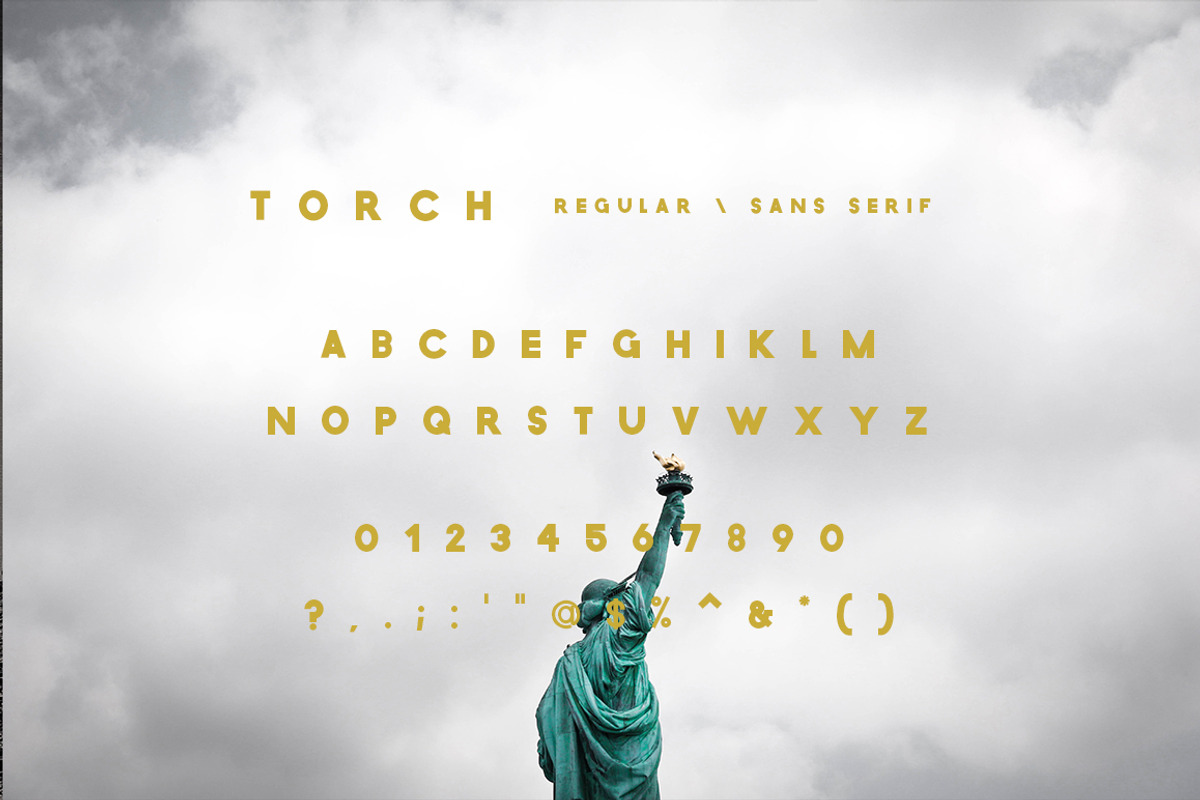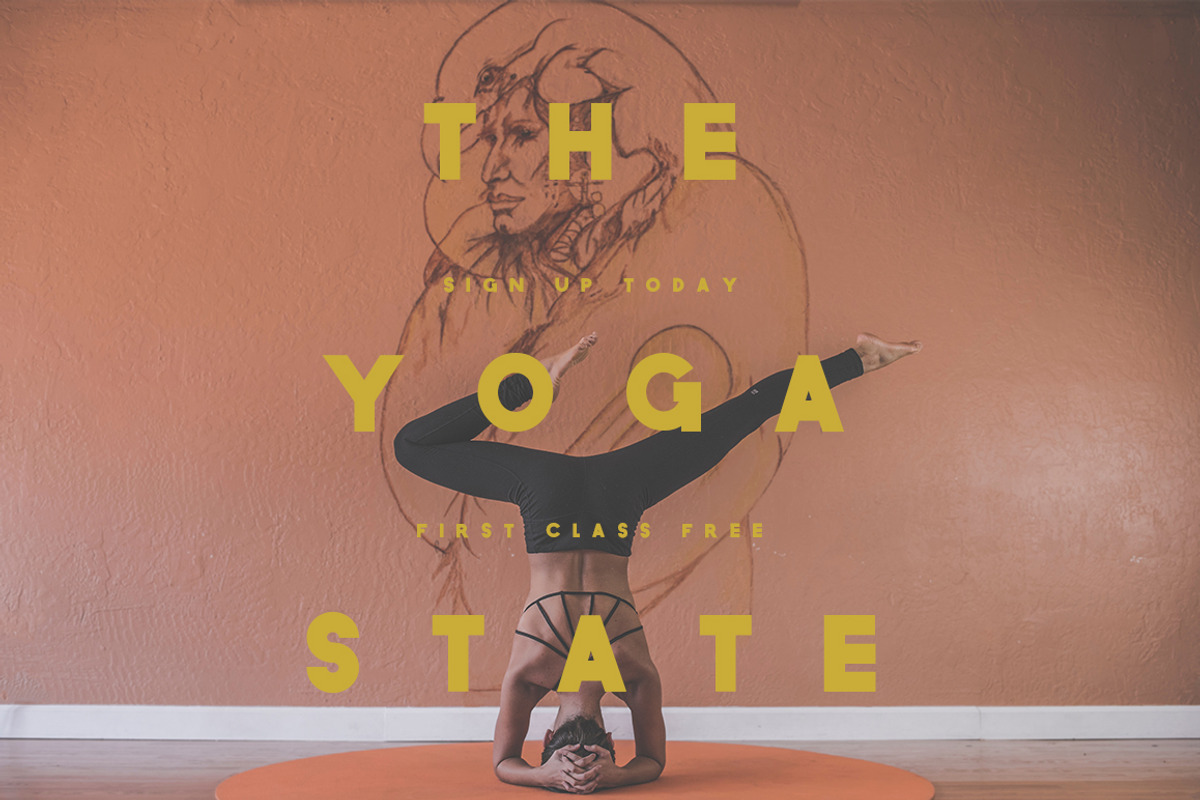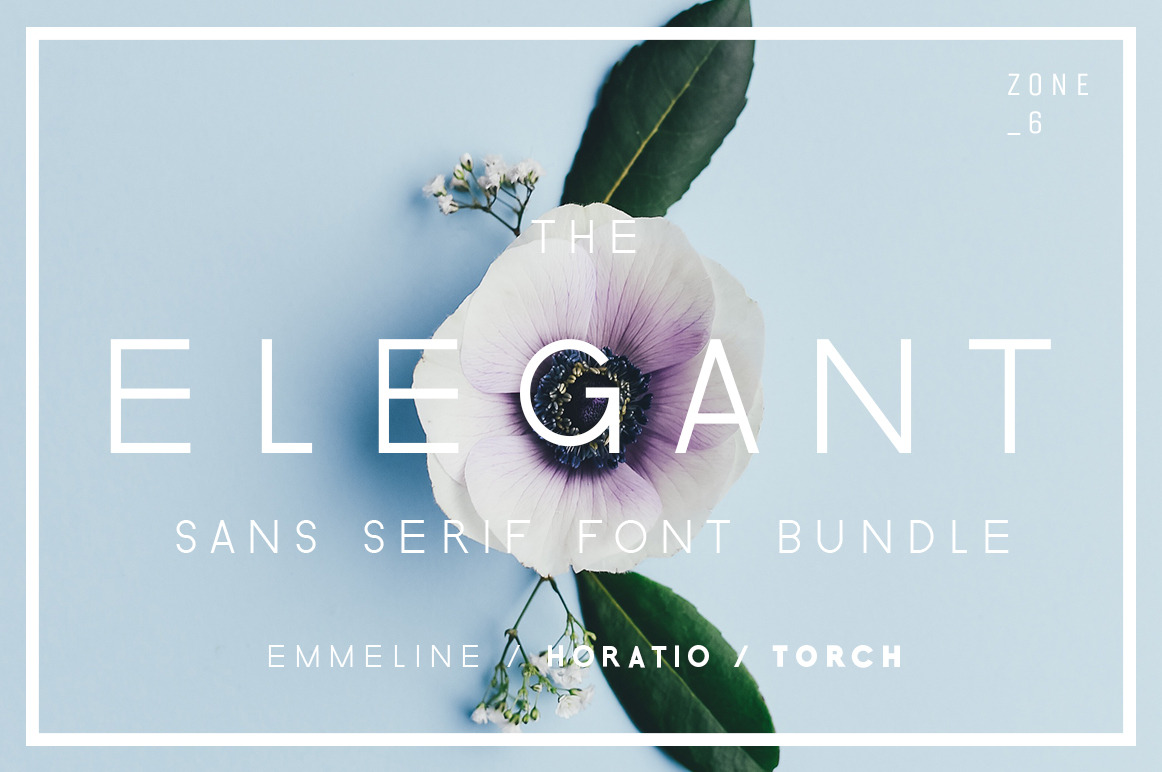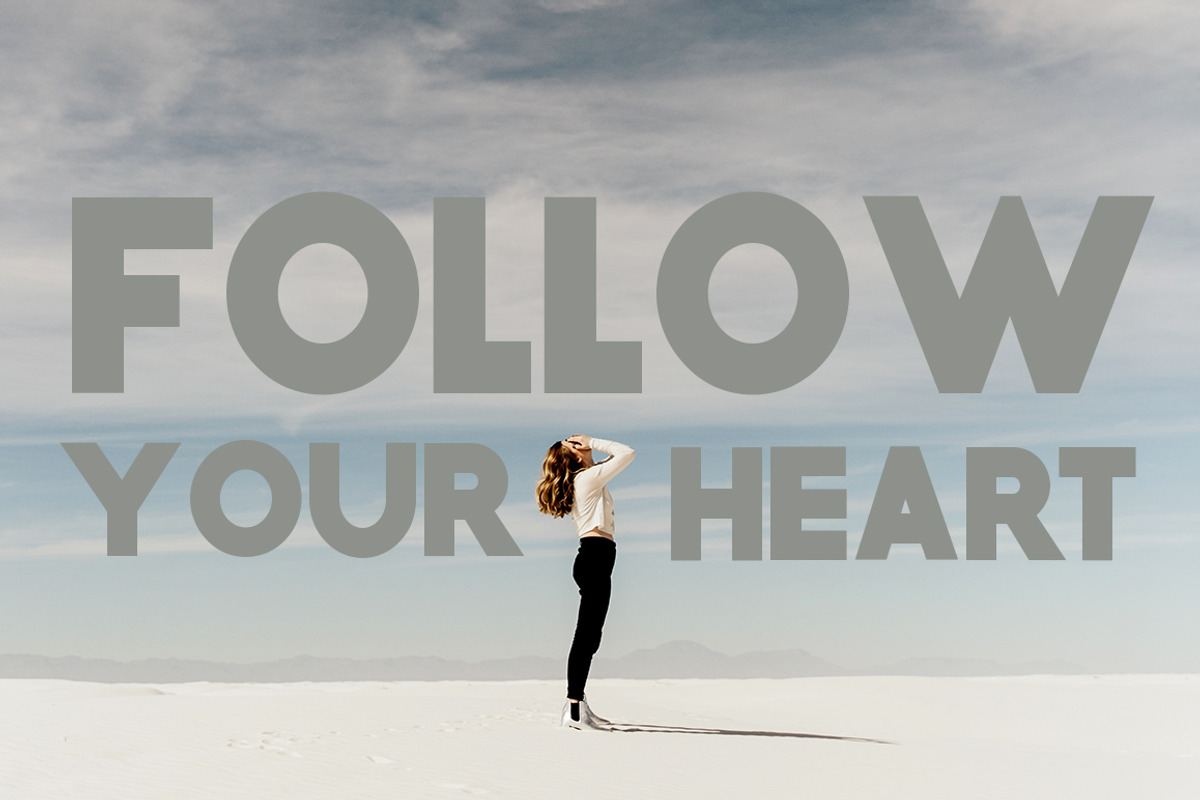
The Elegant Sans Serif Font Bundle
Included are 3 font families - Emmeline, Torch & Horacio. Including multiple weights and italic versions of each sans serif as well as multilingual support.
Each of these fonts work beautifully together to create stunning designs, including branding, print, editorial and more.
If you’re looking for a sophisticated collection containing everything you need to create luxurious designs then the Elegant Fond Bundle is for you.